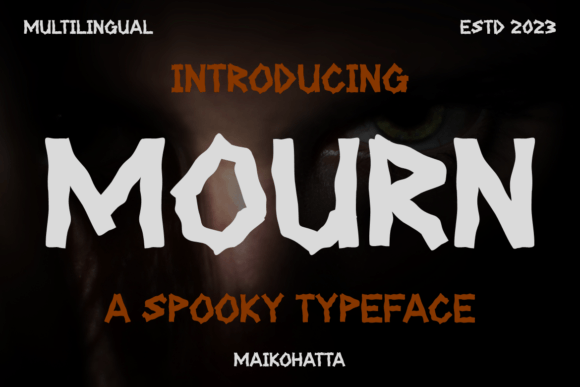
Introducing Mourn Font – A Hauntingly Beautiful Display Font for Bewitching Halloween Designs
As the nights grow darker and the spirits come alive, embrace the mystical aura of Halloween with Mourn Font, a display font that casts a spellbinding charm over any design. This font is a masterpiece of spooky elegance, meticulously crafted to evoke the enigmatic essence of the Halloween season.
Enter a world where the ordinary becomes extraordinary and the mundane transforms into the magical. Mourn Font awakens your imagination, inviting you to create designs that send chills down the spine and ignite the spirit of Halloween. From party invitations that whisper of eerie festivities to posters that conjure up haunted landscapes, Mourn Font is the perfect companion for all your Halloween-inspired creations.
Step into the world of Mourn Font, where darkness and delight intertwine. This font is a visual symphony of sharp angles and haunting curves, capturing the essence of a moonlit graveyard and the thrill of a ghostly encounter. Unleash your creativity and conjure designs that transport your audience to a realm of mystery and enchantment.
With Mourn Font, you have the power to weave tales of horror and charm. Its captivating style adds a touch of intrigue to greeting cards, warning signs, and website designs, creating an immersive experience that leaves a lasting impression.
Mourn Font is not just a font; it's an open door to a world of endless possibilities. Embrace its spectral allure and create designs that hauntingly beautiful, captivatingly mysterious, and enticingly eerie. Let Mourn Font be your creative companion as you craft Halloween designs that linger in the memory long after the last pumpkin has been extinguished.
Dare to embrace the darkness and let Mourn Font guide you on a journey of creativity and enchantment. Unleash the spirit of Halloween and design with a font that speaks to the heart of the spooky season.